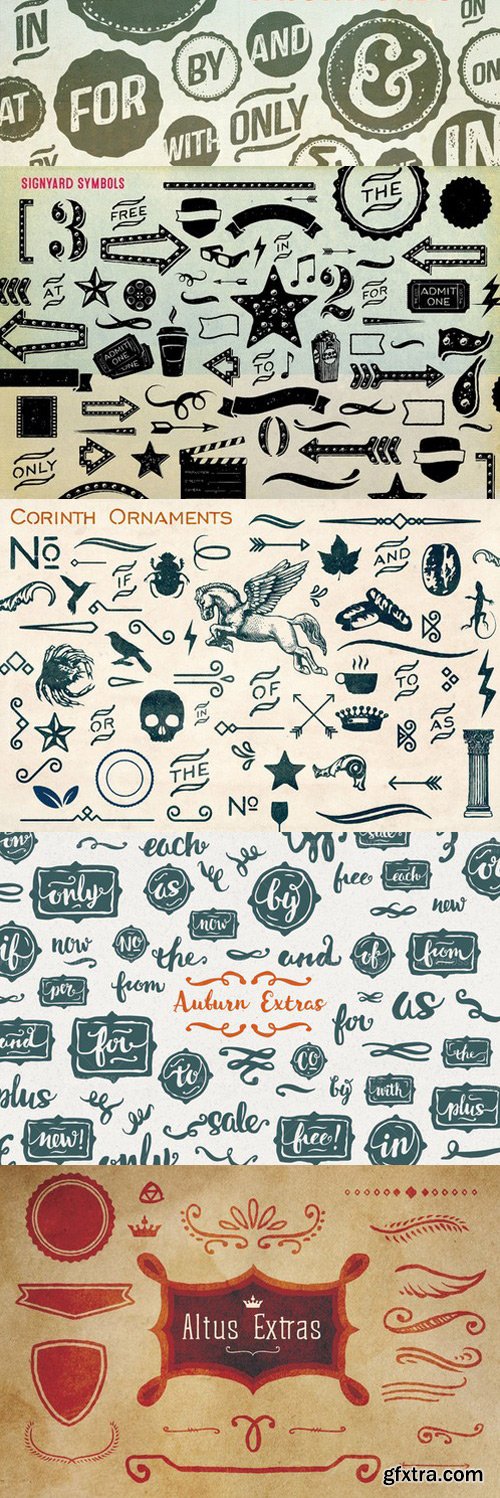
Massive Retro Symbols Bundle
This is a massive collection of pretty much every retro symbol I've ever created, wrapped up in one neat package at a huge discount! Most of the symbols are already textured and have an authentic retro, vintage, letterpress feel perfect for branding and marketing.